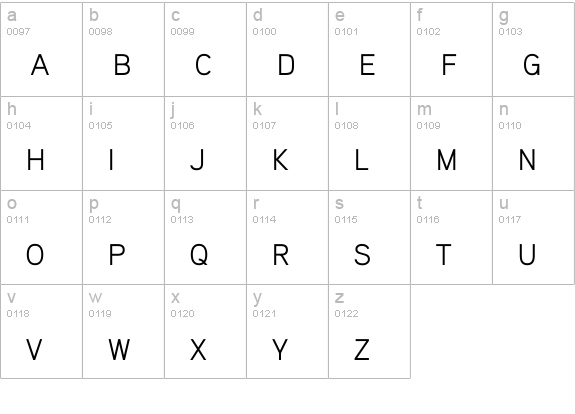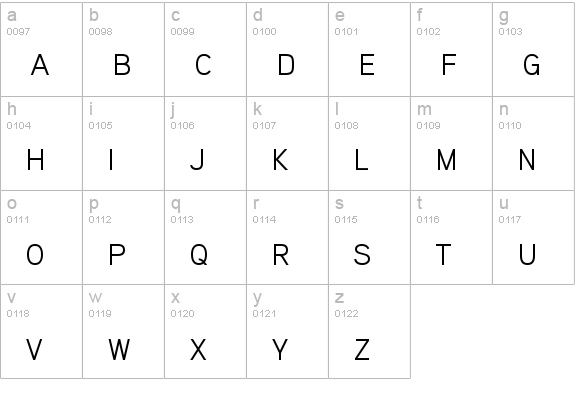
Aaux ProLight SC font is a modern and sophisticated typeface that exudes elegance and professionalism. With its clean lines and sleek design, this font is perfect for various design projects, from branding to editorial layouts. The light weight of the font adds a delicate touch to any text, making it easily readable and visually pleasing. The best part about Aaux ProLight SC font is that it is available for free download at FontsMarket.com. Users can easily access this high-quality font without any cost, making it a valuable resource for designers and creatives looking to enhance their projects without breaking the bank. Whether you're working on a website, a print design, or any other creative project, Aaux ProLight SC font is a versatile and stylish option that will elevate your work to the next level. Download it today and add a touch of sophistication to your designs.